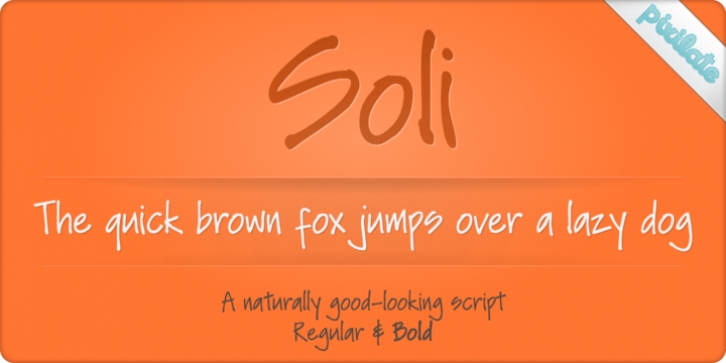
Soli Px was designed by Kemie Guaida Ortega, Solange Guaida and published by Pixilate. Soli Px contains 2 styles and family package options.
Soli, based on an architect's handwriting is a fun, modern script face with a very complete character set. Can be used for journaling, scrapbooking, or anywhere a handmade touch is needed.